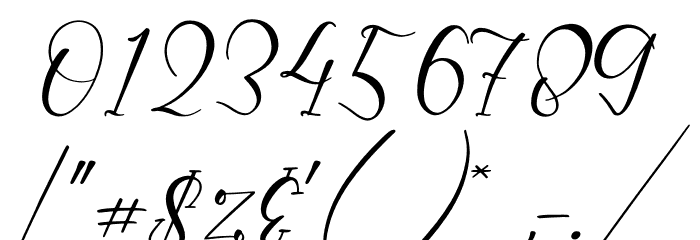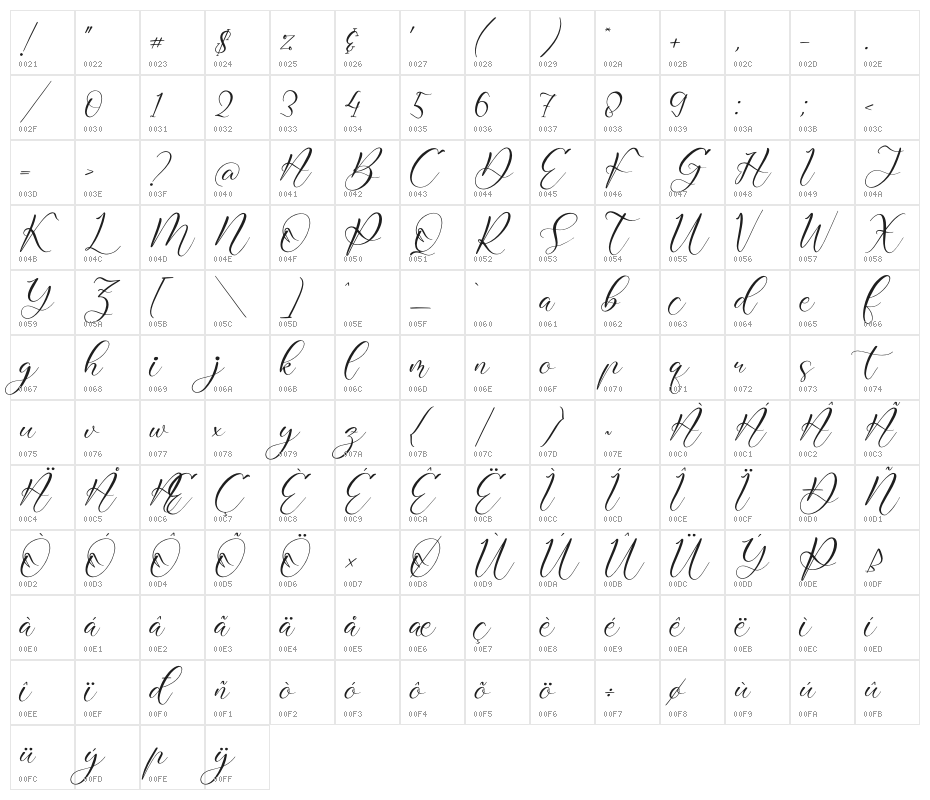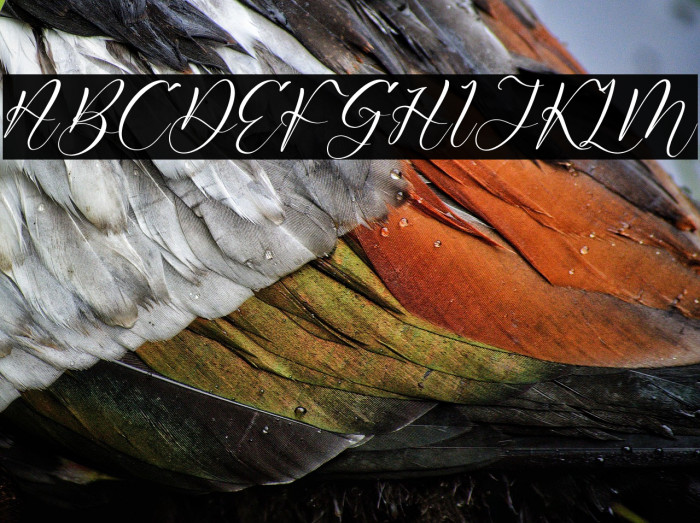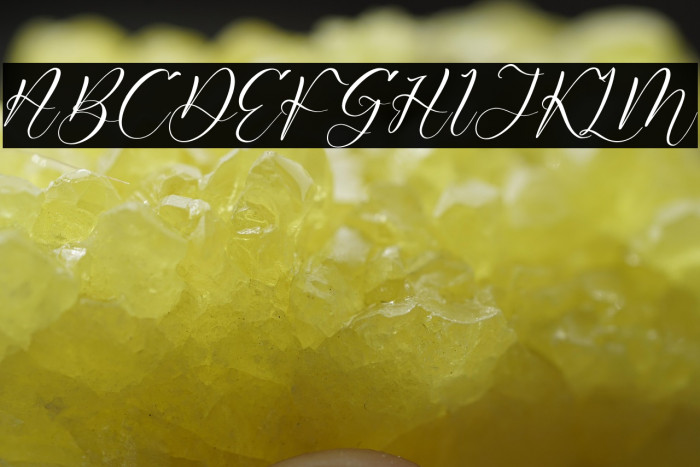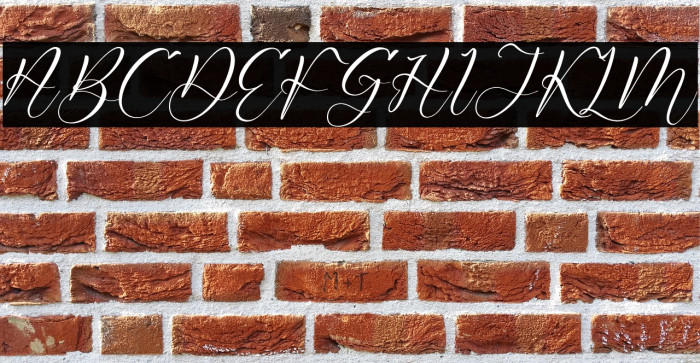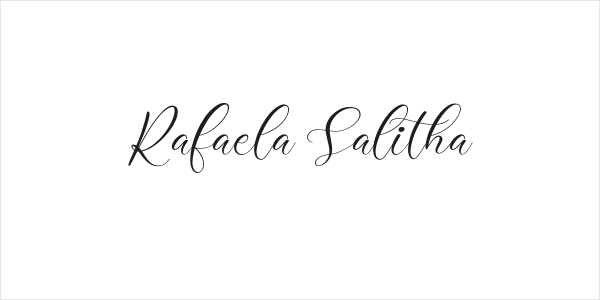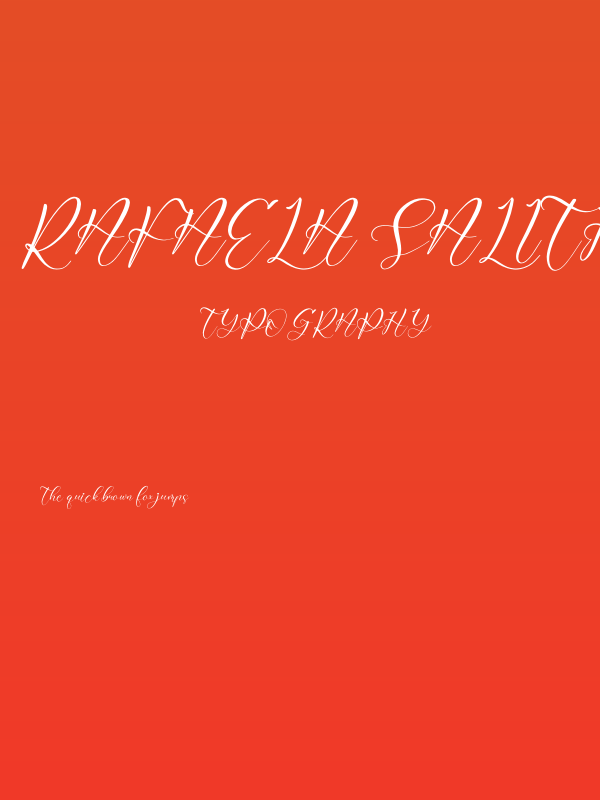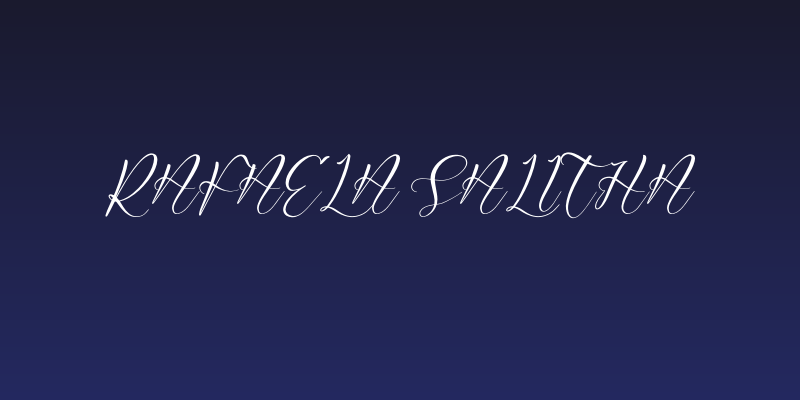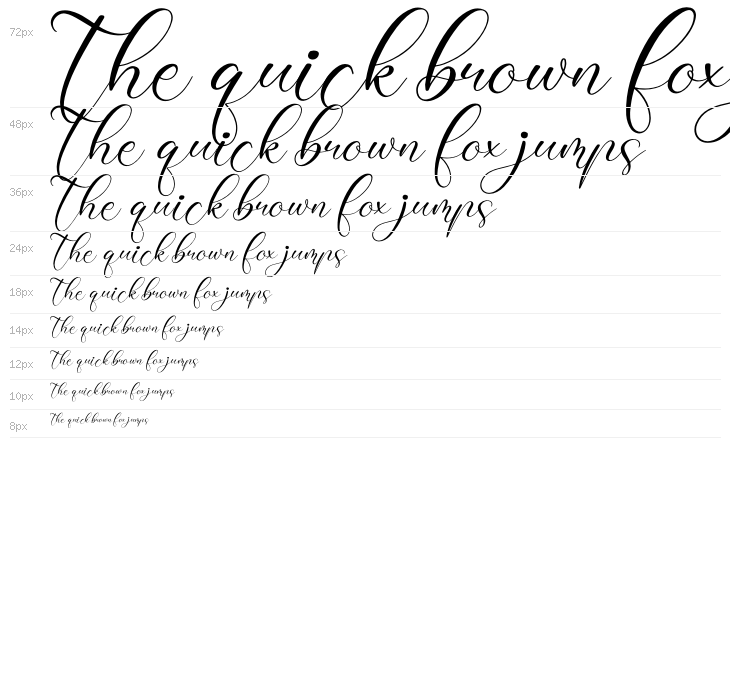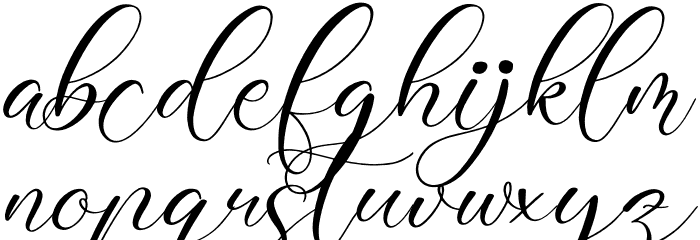
Rafaela Salitha Font
Rafaela Salitha Description
This elegant script font features flowing, interconnected letters that exude a sense of sophistication and grace. The uppercase letters are characterized by their sweeping curves and loops, while the lowercase letters maintain a consistent flow with delicate flourishes. The numerals are stylishly designed to complement the overall aesthetic, and the special characters are crafted with the same attention to detail. This font is perfect for adding a touch of elegance to any design project, with its high contrast in stroke thickness and refined style.
Overall StyleElegant